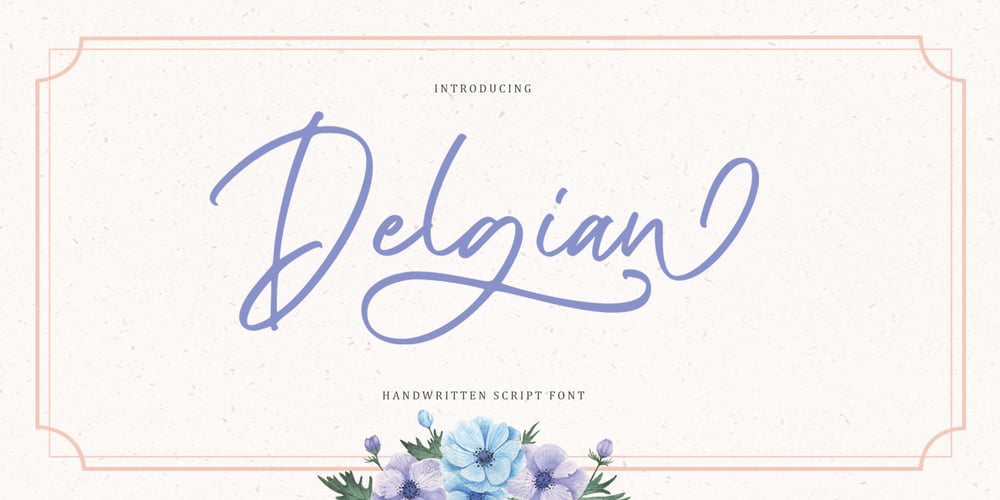
Delgian Font Family was designed by Hendry Juanda and published by Letterhend. Delgian contains 1 styles and family package options. Introducing, Delgian, A Feminime Handwritten Script. This typeface light-simple and touch with natural handwritten calligraphy. You will also get many alternate and ligature to explore many touch in your design.This font perfectly made to be applied especially in logo, and the other various formal forms such as invitations, labels, logos, magazines, books, greeting / wedding cards, packaging, fashion, make up, stationery, novels, labels or any type of advertising purpose.Features :uppercase & lowercasenumbers and punctuationmultilingualligaturesalternatesPUA encodedWe highly recommend using a program that supports OpenType features and Glyphs panels like many of Adobe apps and Corel Draw, so you can see and access all Glyph variations.Email us to letterhend@gmail.com if you need something! Happy Designing!